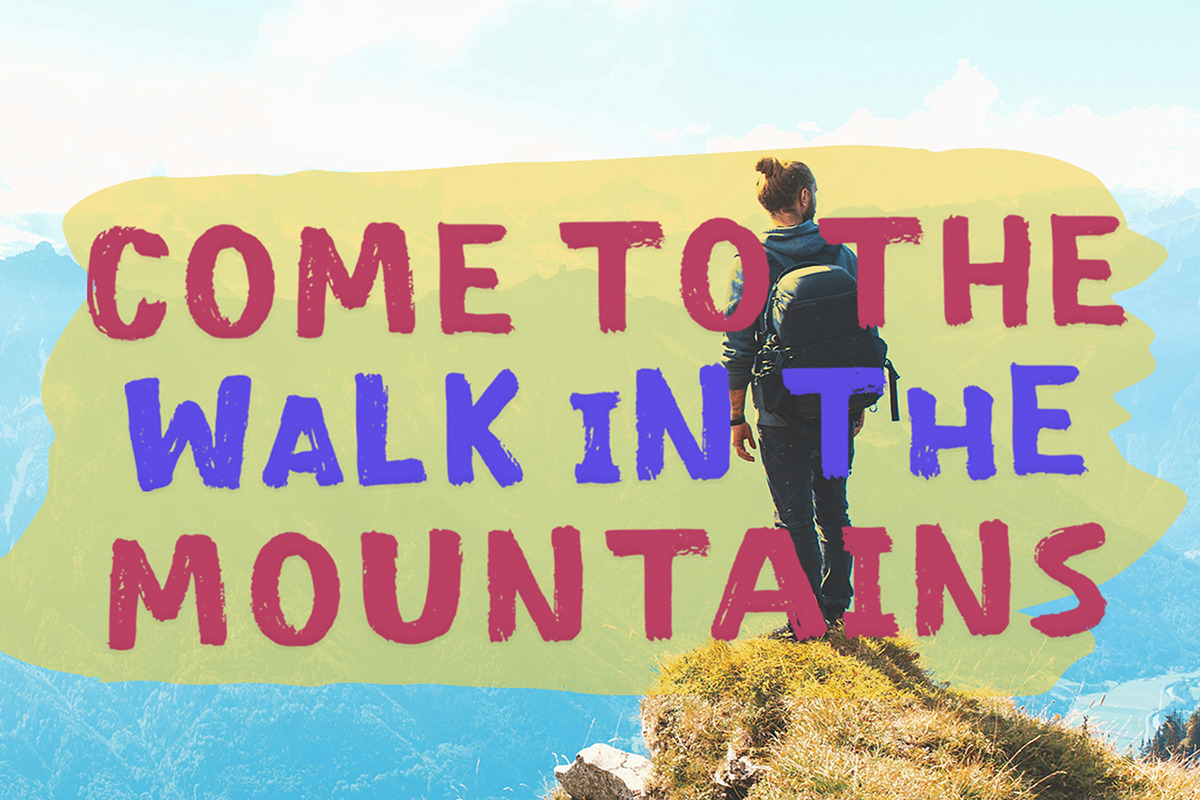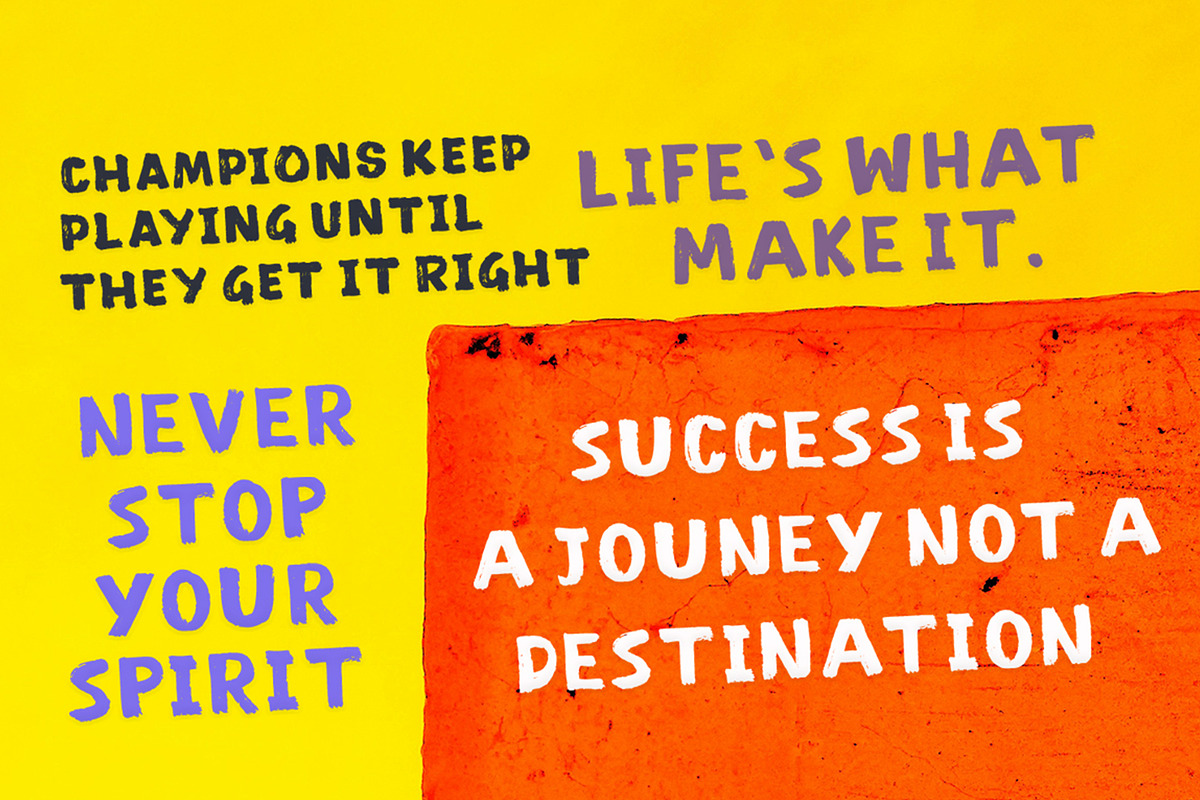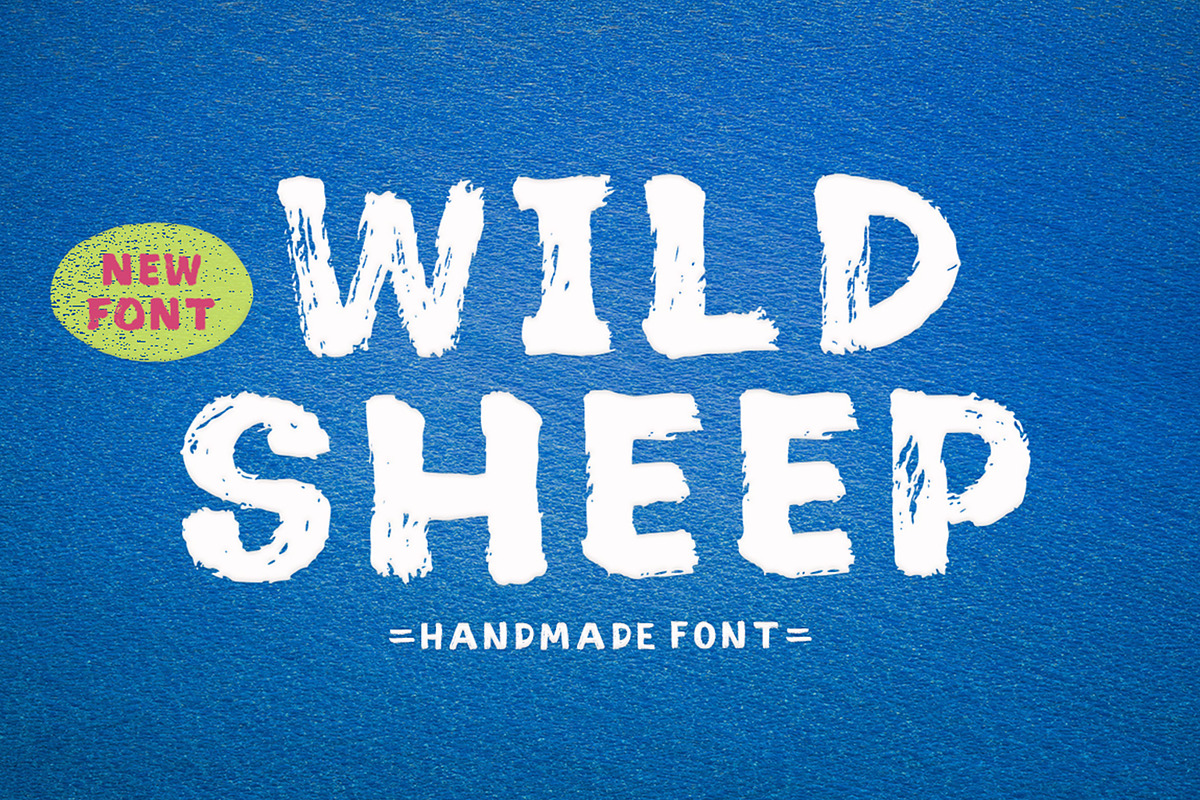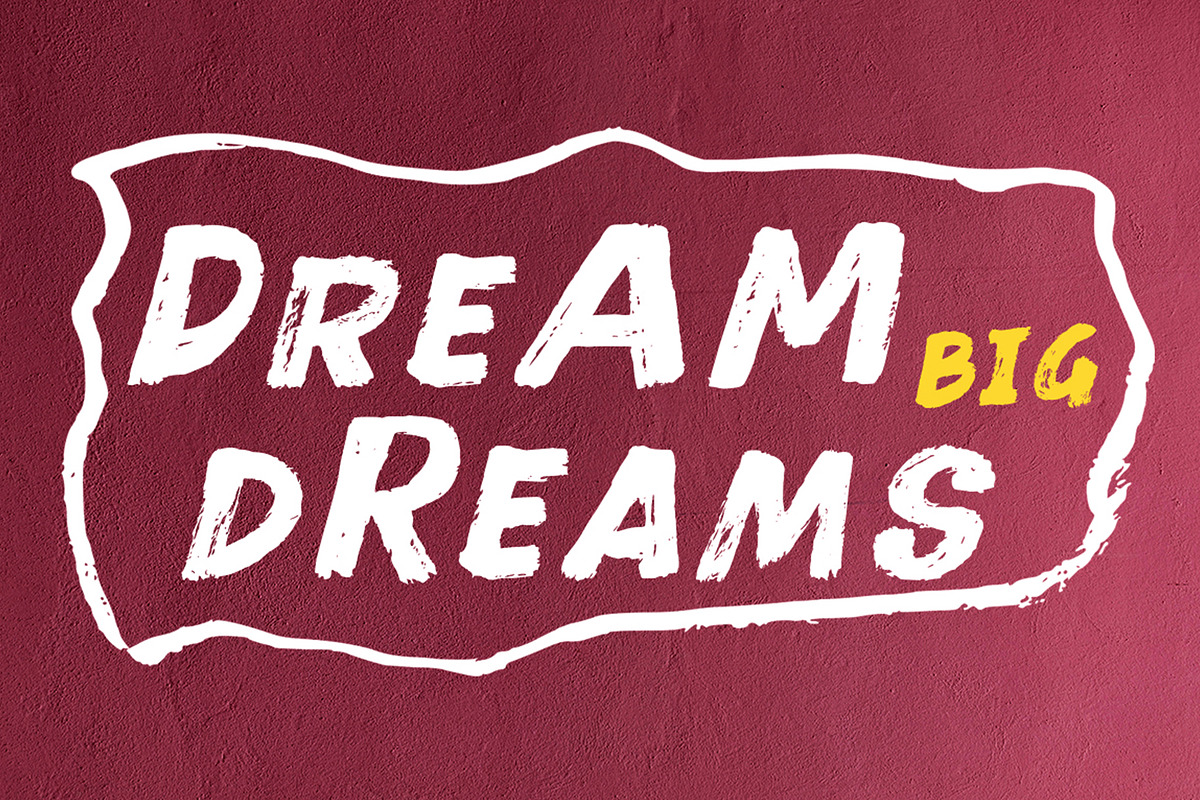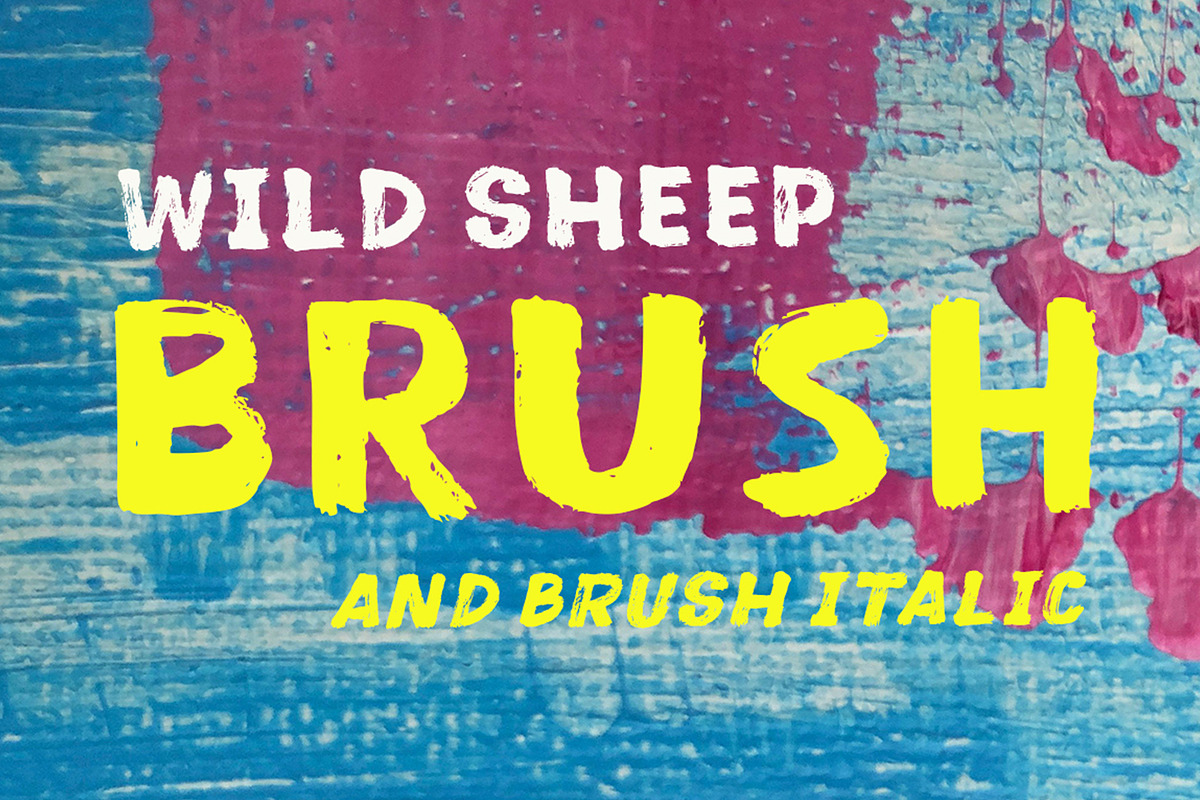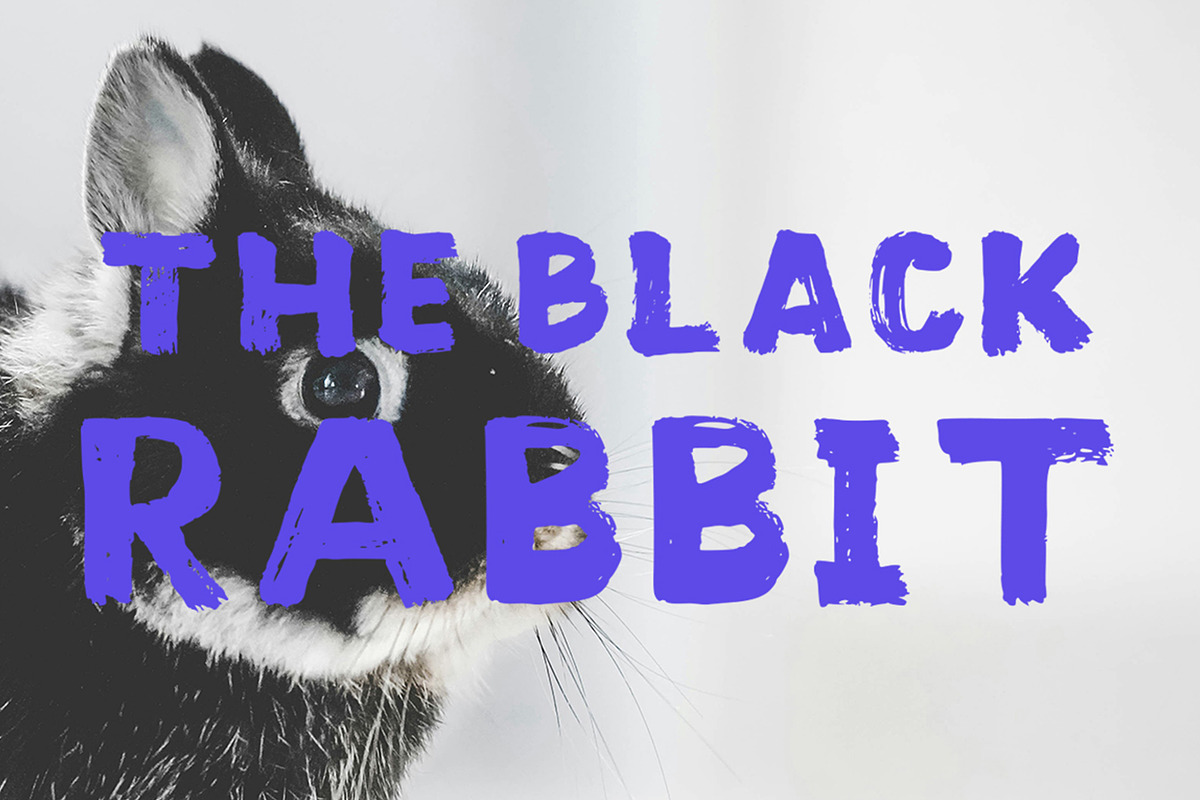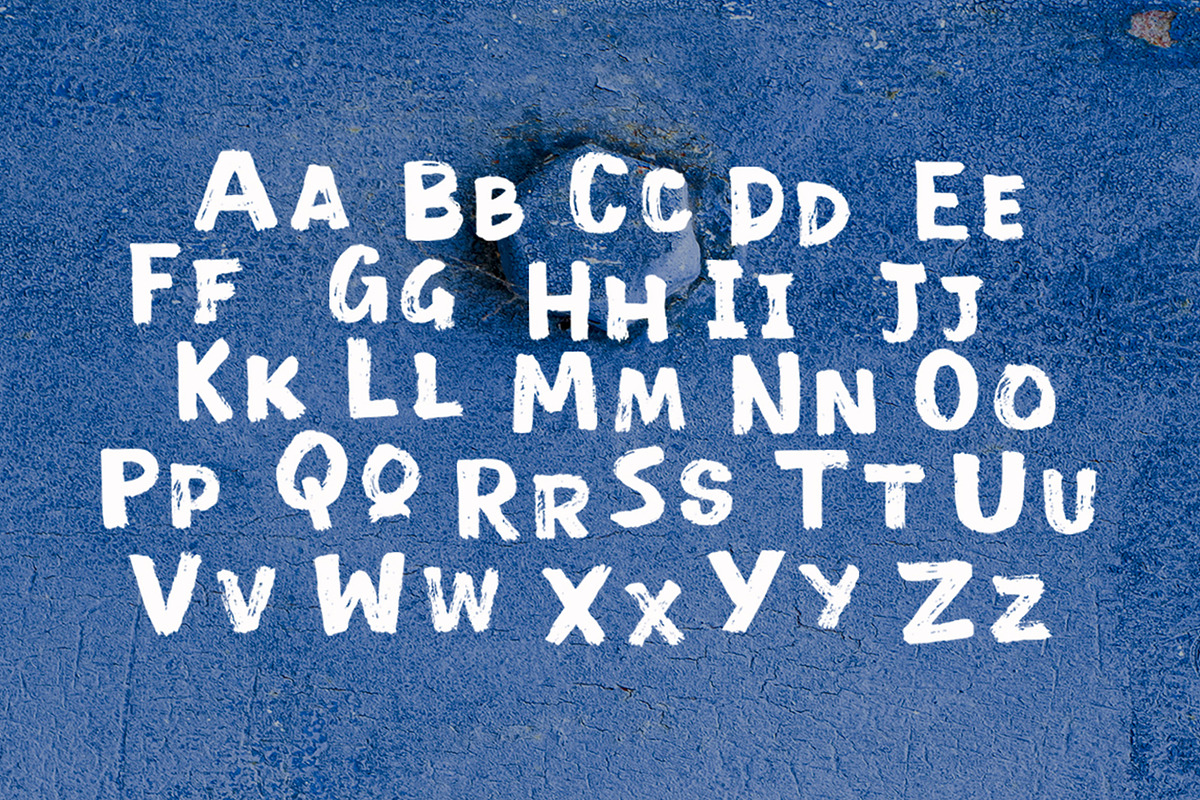
Wild Sheep
Wild Sheep Brush is a playful and expressive handwritten brush font, created directly from my own handwriting. It brings a warm and personal touch to any design project with its natural flow and unique character. It comes in 2 versatile styles to suit a variety of creative needs:
Normal – The original brush style with a smooth, hand-painted look.
Normal Slant – A slightly slanted version for a more dynamic feel.
With its authentic brush texture and hand-drawn character, Wild Sheep Brush adds a creative and heartfelt touch to any project.